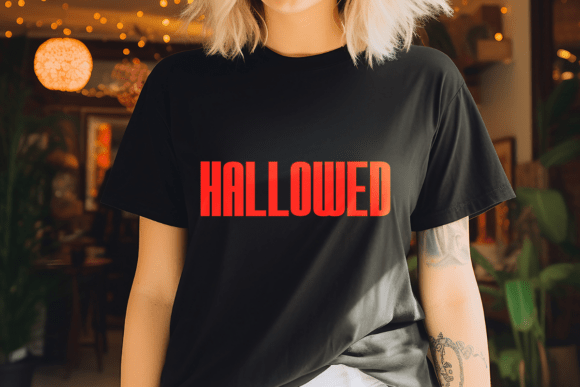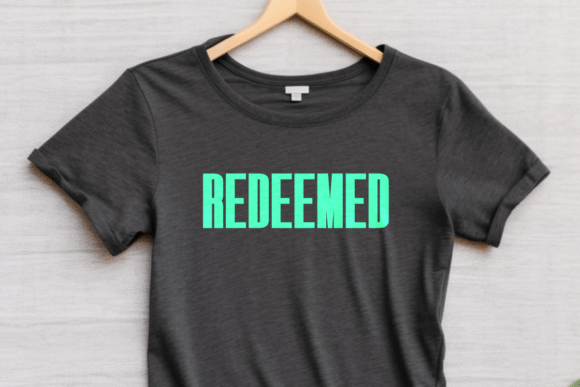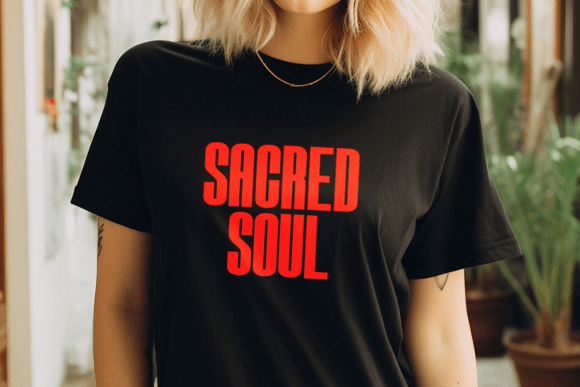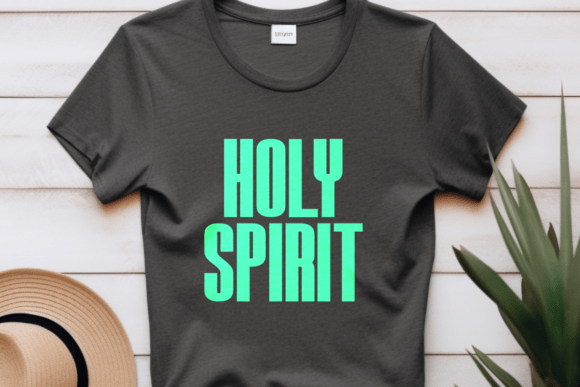
The Power of a Single Font
Have you ever found yourself stuck in a design rut, struggling to find the perfect font to elevate your project? You’ve spent hours browsing through endless font libraries, only to settle for something that’s “good enough.” But what if I told you that there’s a font that can change the game for you? A font that’s specifically designed to make your creations stand out from the crowd, and leave a lasting impression on your audience.
Enter the Blessed Font, a sleek and stylish condensed sans-serif display font that’s perfect for creators who value clean aesthetics and strong visual impact. With its tall, narrow letterforms and elegant spacing, this font is a game-changer for designers who want to take their projects to the next level.
Blessed Font Key Features
- Size: The font family includes multiple weights and styles, ranging from 100 to 900, providing a versatile range of sizes for various design needs.
- Resolution: Blessed Font is designed to work well at high resolutions, making it suitable for use in digital media, including web design, mobile apps, and print materials.
- Unique Characteristics: The font’s unique blend of modern and traditional elements creates a distinctive look that is both elegant and sophisticated.
- Kerning and Ligatures: The font features advanced kerning and ligature pairs, ensuring smooth and seamless text rendering.
Blessed Font Review
I recently had the chance to work with the Blessed Font, and I’m sharing my honest thoughts on it.
- Beautiful typography: The font has a unique, elegant style that’s perfect for headers and titles.
- Wide compatibility: I was able to use it across multiple platforms and devices without any issues.
- Good legibility: The font is easy to read, even at smaller font sizes.
- Limited language support: I noticed that the font doesn’t support some languages, which could be a problem for multilingual projects.
- Not ideal for body text: While the font is great for headers, it’s not the best choice for large blocks of body text.
- No italic or bold variations: I had to rely on other fonts for italic and bold text, which added extra complexity to my project.
Overall, I think the Blessed Font is a great addition to any designer’s toolkit, but it’s not a one-size-fits-all solution. With some careful planning and selection, it can add a touch of elegance to your projects. Just be aware of its limitations and plan accordingly.
Blessed Font is commonly used in:
- Print design and marketing materials
- Presentations and documents
Tip: Use Blessed Font in a variety of contexts to create a consistent visual identity and enhance your brand’s recognition.
Alternatives to Blessed Font for Designers
Great Vibes is a modern, elegant script font perfect for creating a sense of sophistication and refinement. It’s ideal for use in branding, advertising, and editorial design where a touch of luxury is desired. Compared to Blessed Font, Great Vibes has a more refined and polished look, making it suitable for high-end projects.
Carolyna Pro is a stylish, cursive font that exudes a sense of elegance and sophistication. It’s perfect for use in wedding invitations, greeting cards, and other creative projects where a touch of whimsy is desired. Unlike Blessed Font, Carolyna Pro has a more fluid and expressive feel, making it ideal for projects that require a sense of movement and energy.